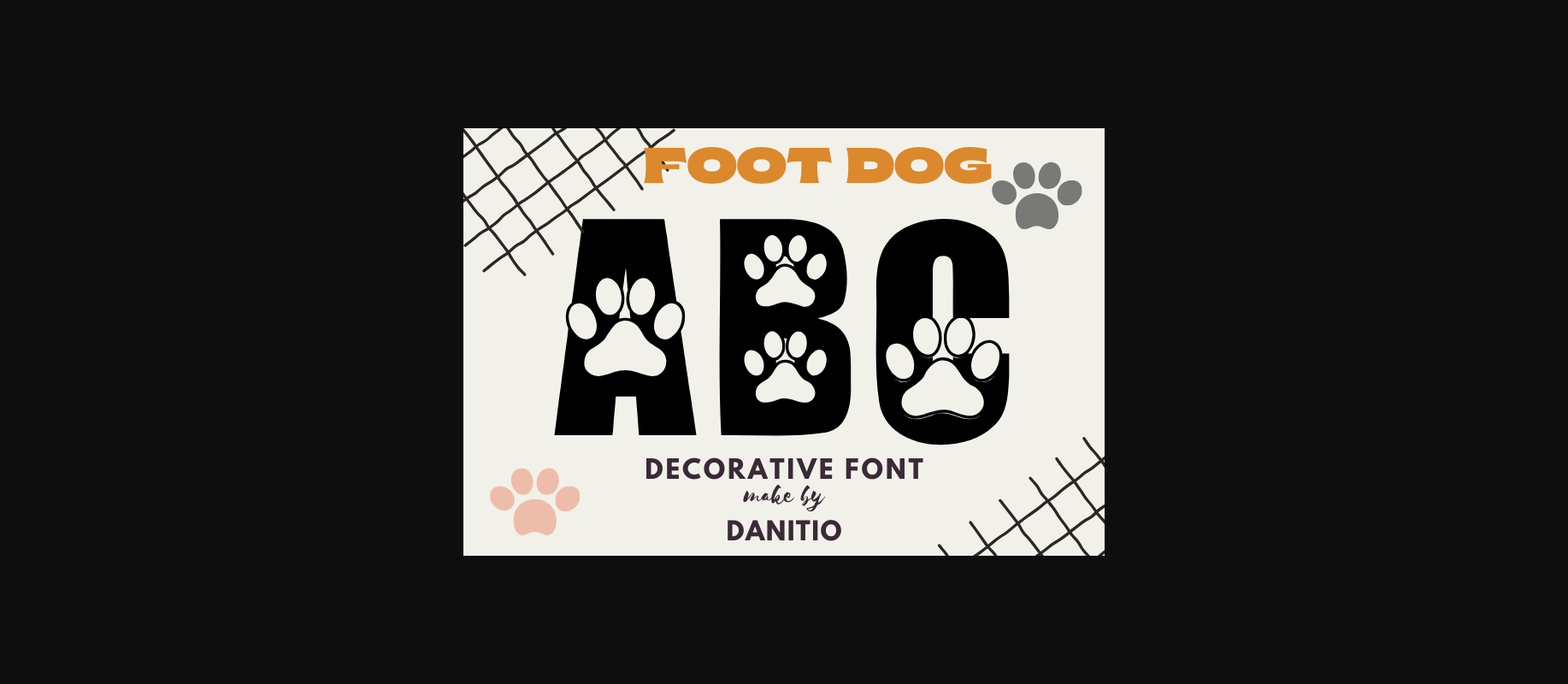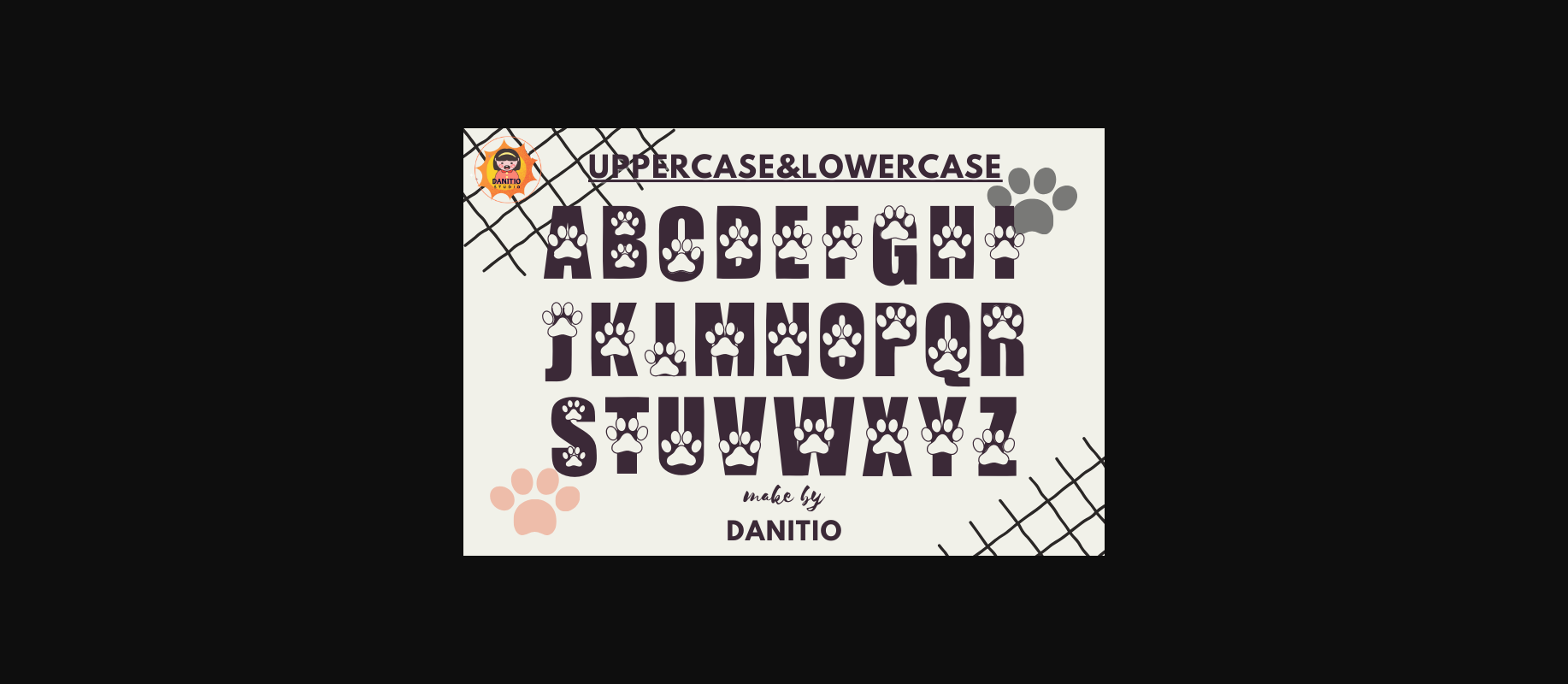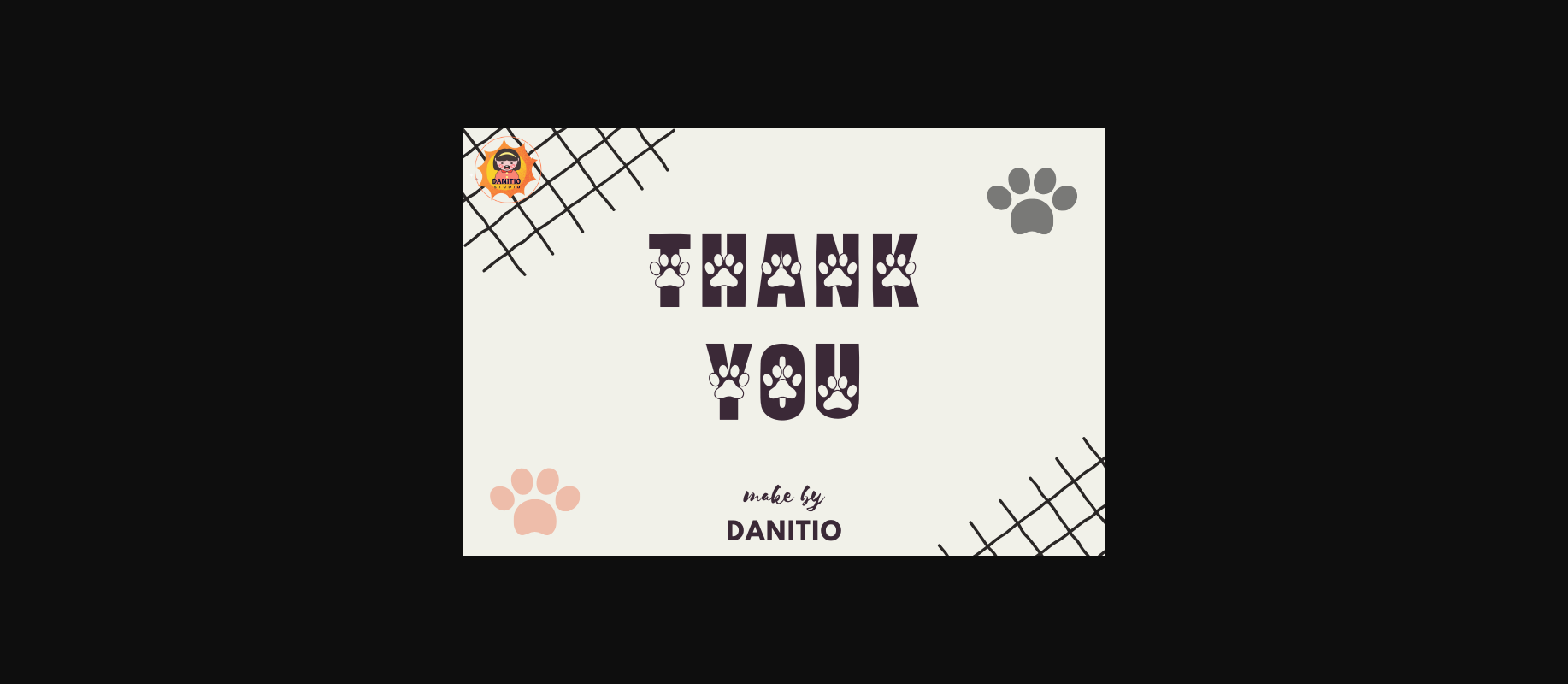
Foot Dog Font
About Foot Dog Font
Foot Dog is a funny, cool, decorative font. Complete with cute dog footprints and softly decorated characters, this decorative font is perfect for your favourite projects like posters, flyers, and social media posts. Beautiful and eye-catching stationery artwork Social media posts and cute greeting cards Or use it on products that you think are suitable for this font. Hope you enjoy using my fonts.